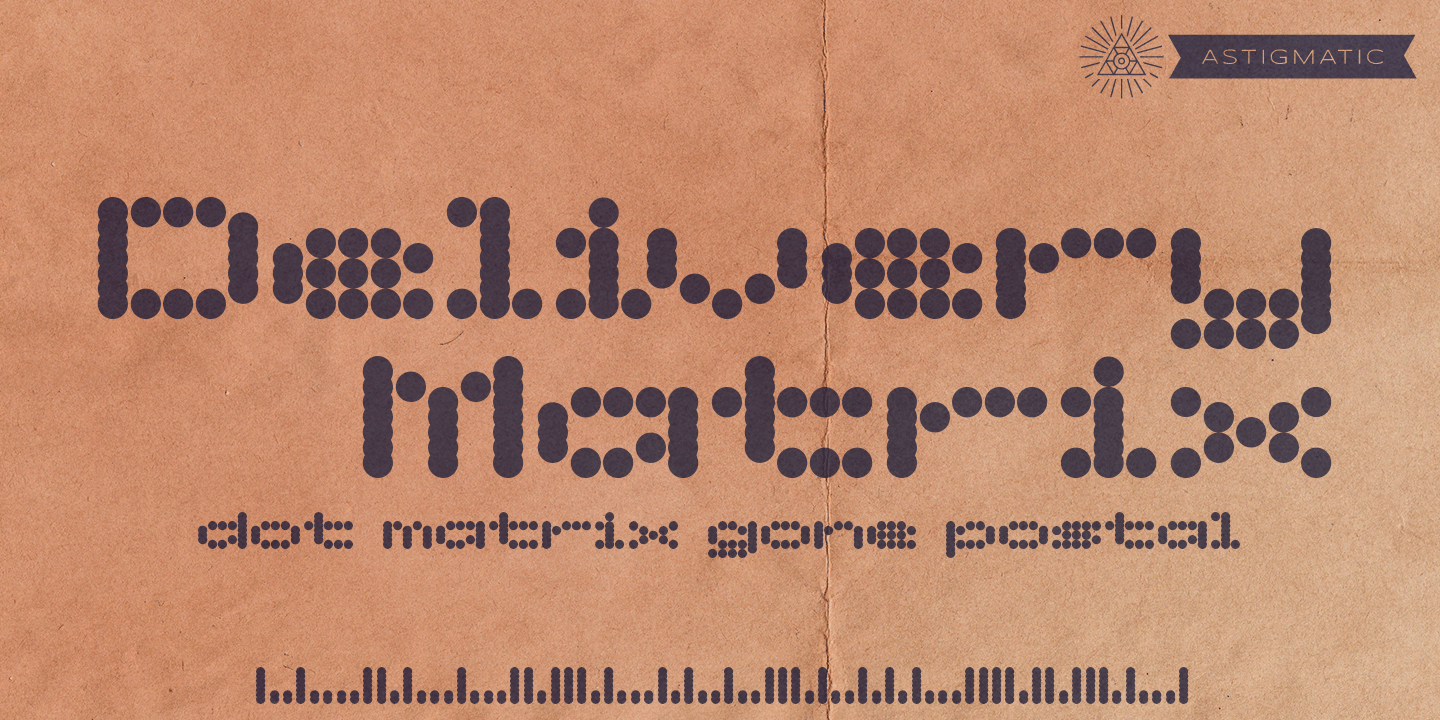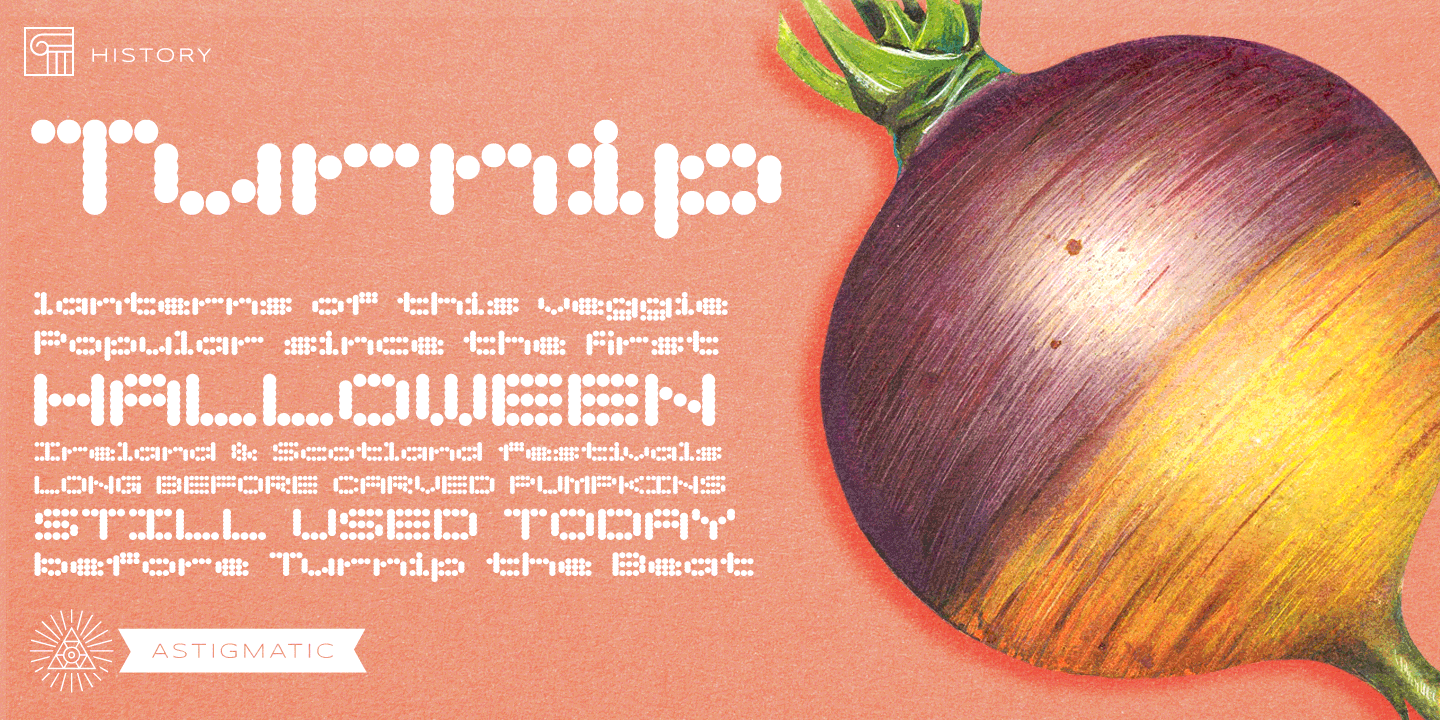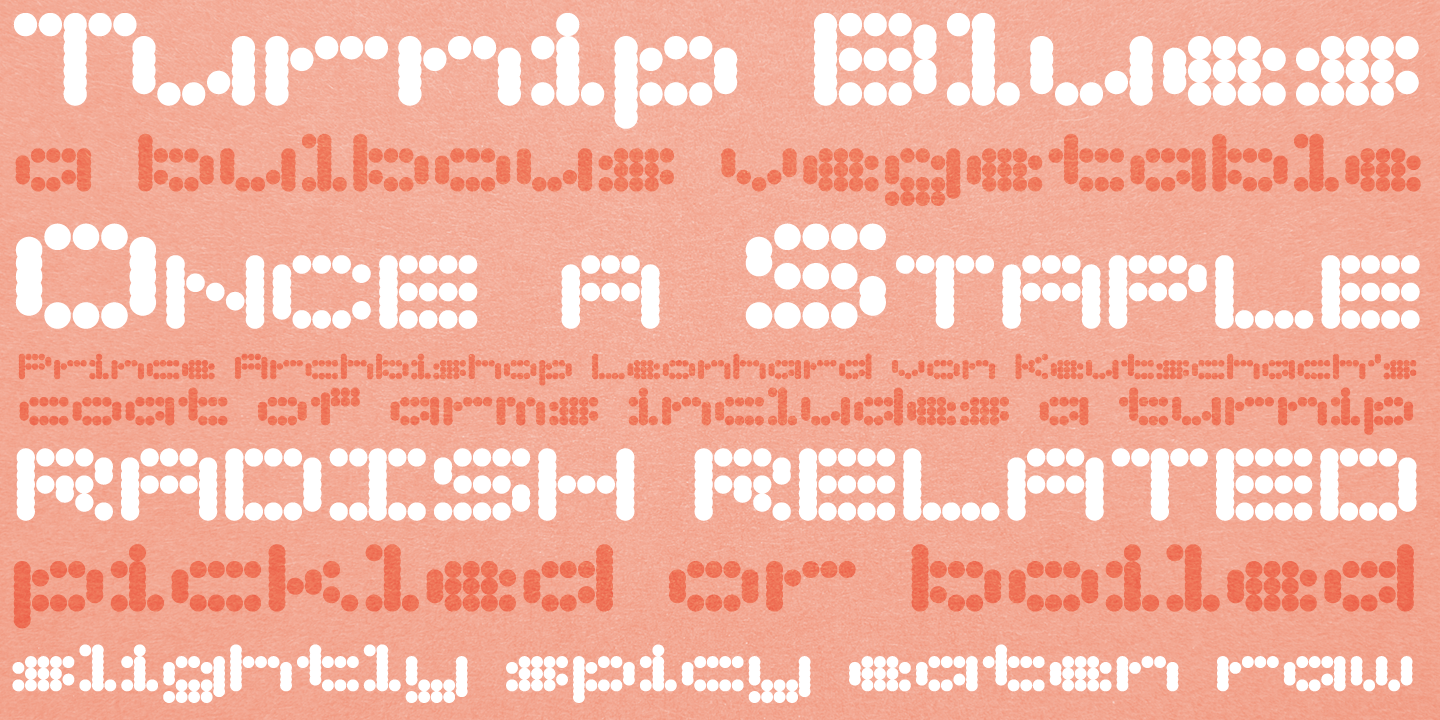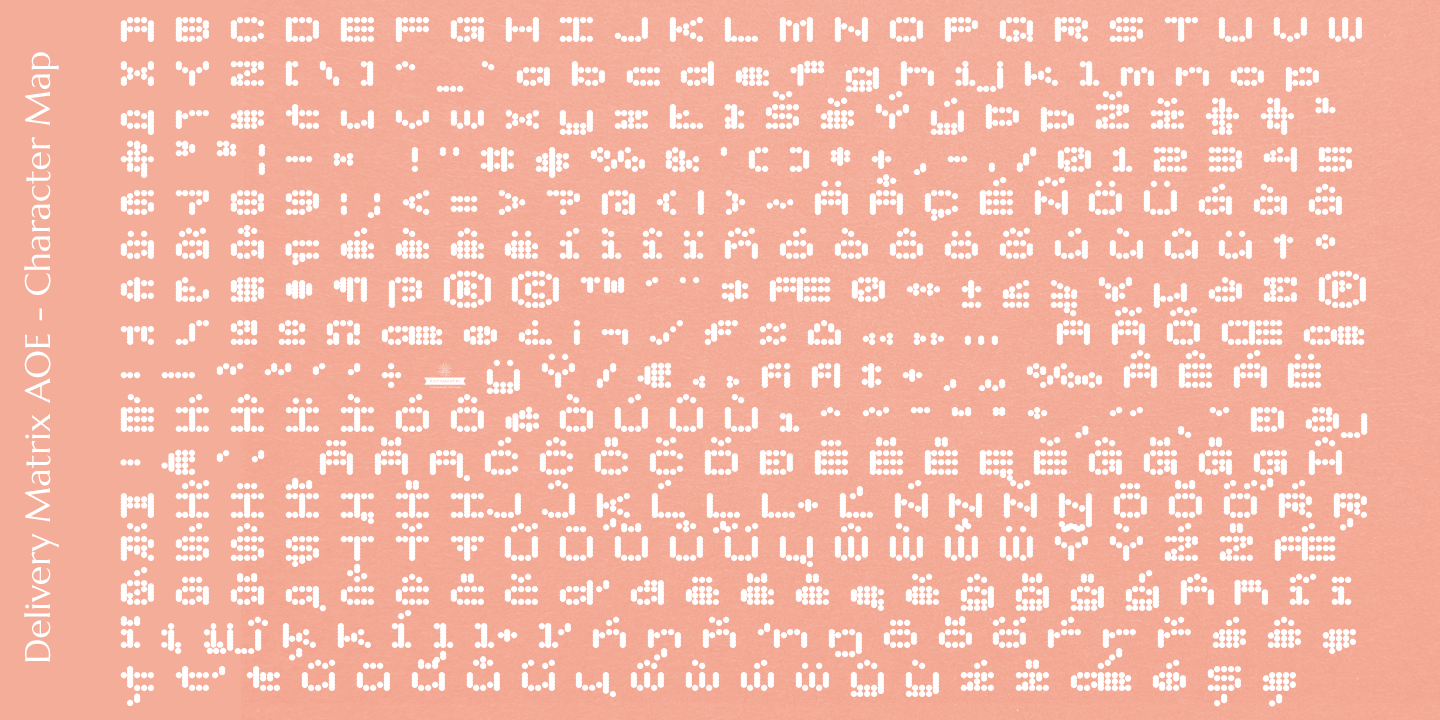
Delivery Matrix AOE
Font Family by Astigmatic One Eye
The Delivery Matrix typestyle is inspired by the high bleed stamp printing on some shipped packages I've received over the years. An extended techno dot matrix style, good for so many uses at a wide variety of sizes, even with the tight "e" and "s" characters. Do you send out packages to friends...? Do you make techno style art/flyers...? Here is a typestyle for you. Put the power of the Digital and Postal systems in your computer and at your fingertips, get Delivery Matrix today!